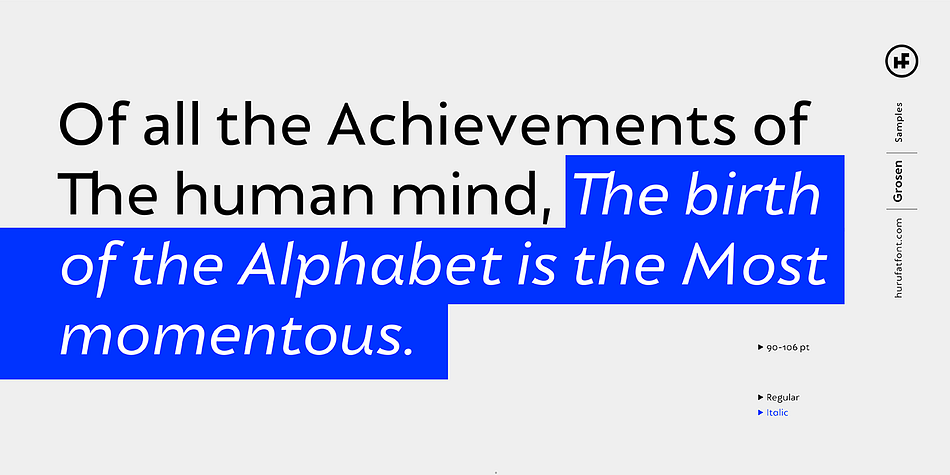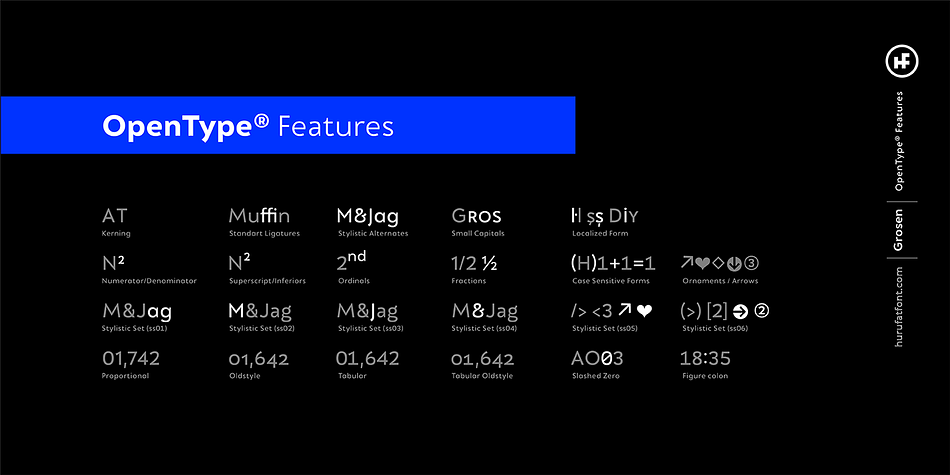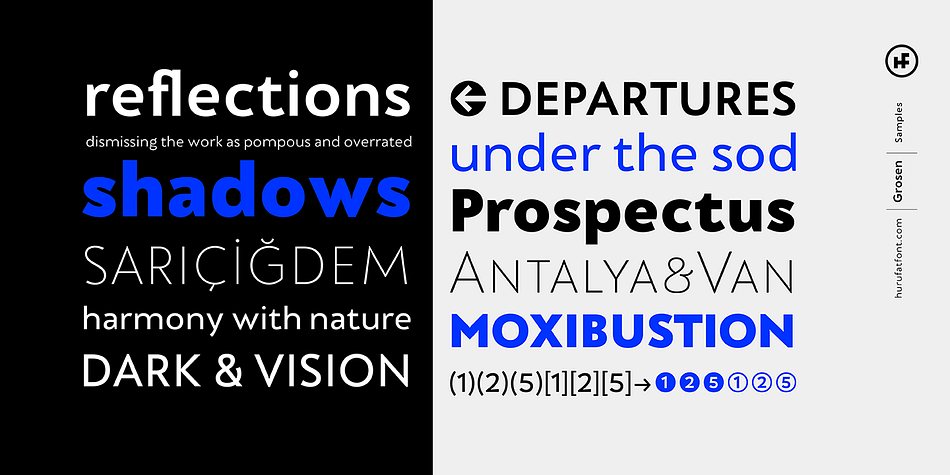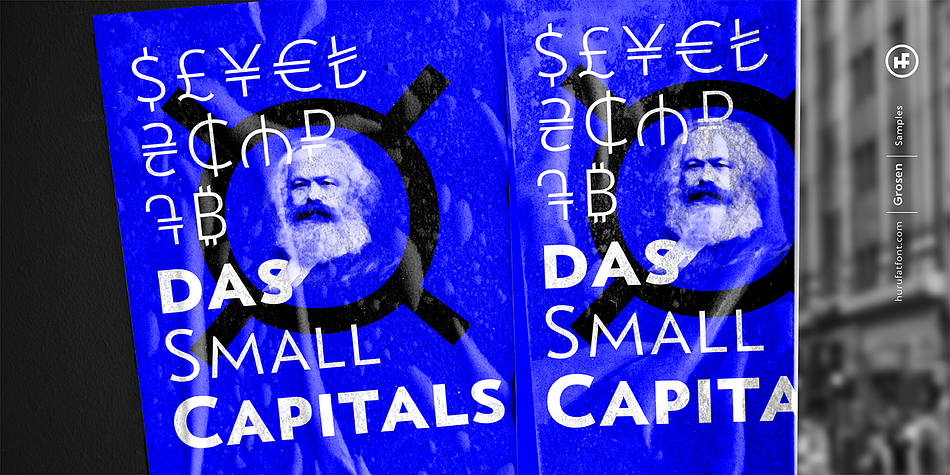
Grosen
Designed by Oğuzhan Cengiz, Grosen is a sans serif font family. This typeface has fourteen styles and was published by Hurufatfont Type Foundry.
Grosen Typeface Family is designed by Oğuzhan Cengiz in the years 2017-2019. It has a grotesque structure that contains humanistic effect.
Although it is designed upon the basic geometric structure, it shows own style with expansion that makes a reference to serif at start and finish of round letters.
Grosen Typeface Family has fourteen styles with seven weights and theirs real italics. These have advanced OpenType features; like small capitals, case sensitive signs and math symbols, alternative characters (a, g, M, J, &), automated fractions, oldstyle figures, tabular linings, proportional numbers…